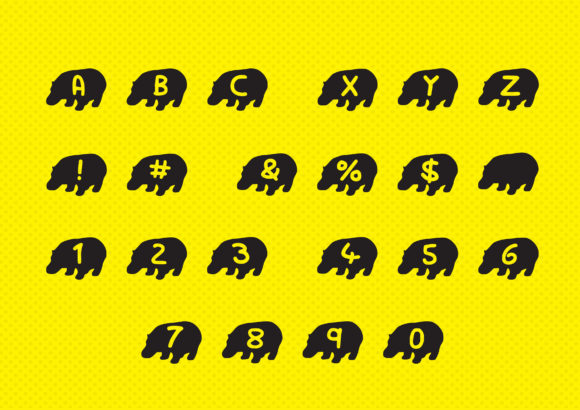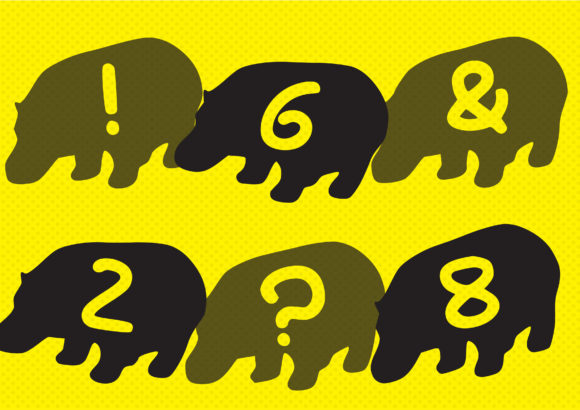
Introduction to Play Hippo Font
Have you ever stared at a blank page, feeling stuck and unsure of where to start on a creative project? The blank slate can be daunting, but what if you had the perfect design resource to bring your ideas to life? For designers and artists working on children-related projects, the right font can make all the difference.
Enter the delightful Play Hippo Font, a high-quality decorative font that’s sure to delight kids and adults alike. With its playful, whimsical design and transparent background, this font is perfect for storybooks, games, kindergarten projects, and more. As a valuable addition to any designer’s toolkit, the Play Hippo Font offers endless possibilities for creative expression.
Key Features of Play Hippo Font
- Unique and playful design, perfect for creative projects and adding a fun touch to your designs.
- High-quality font with a transparent background, allowing for easy integration into various design resources.
- Designed to be versatile, the Play Hippo Font can be used in a range of creative contexts, from logos and branding to web design and advertising.
Honest Review: Play Hippo Font
I recently had the chance to work with the Play Hippo Font, and I must say it’s been a game-changer for my creative projects. This design resource has been a huge hit with my clients, and I’m excited to share my thoughts on it.
- High-quality design: The Play Hippo Font is incredibly detailed and visually appealing, making it perfect for any project.
- Transparent background: This feature allows for seamless integration with any design element, giving me more flexibility in my creative process.
- ⚠️ Limited font variations: While the Play Hippo Font is great on its own, I wish there were more variations available to mix and match.
- ⚠️ Not ideal for small text: Due to its bold design, the Play Hippo Font may not be the best choice for small text or intricate designs.
Overall, I’m thoroughly impressed with the Play Hippo Font. Its high-quality design, free download, and transparent background make it an excellent addition to any designer’s toolkit. While it may have some limitations, I highly recommend giving it a try for your next creative project.
Play Hippo Font
Experiment with different font sizes and colors to create a unique design. Combine Play Hippo Font with other design elements, such as shapes or images, to add visual interest to your project.
Use Play Hippo Font in a variety of creative projects, including social media graphics, posters, and presentations. The high-quality font is perfect for adding a professional touch to your designs.